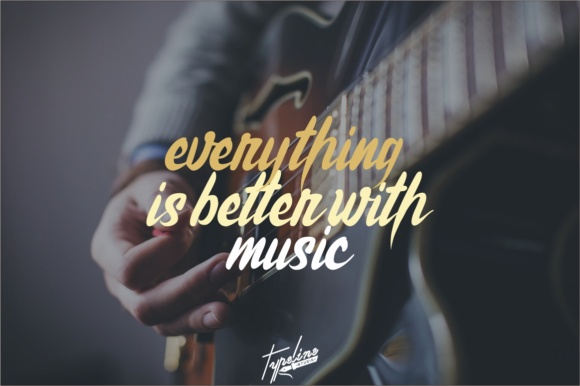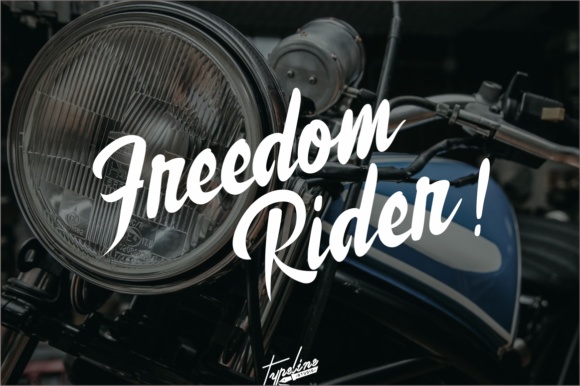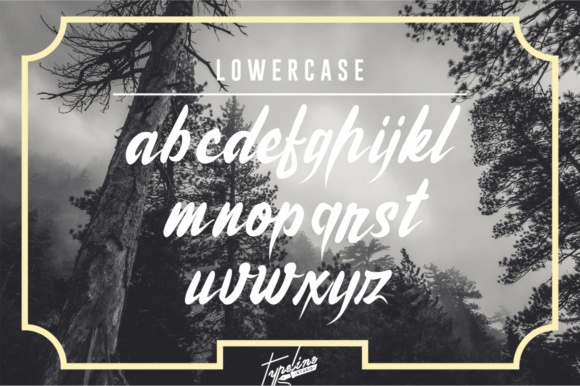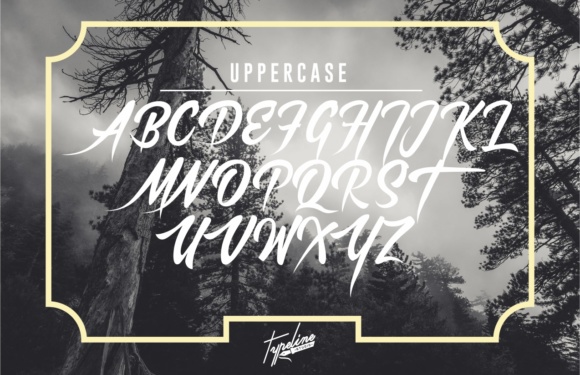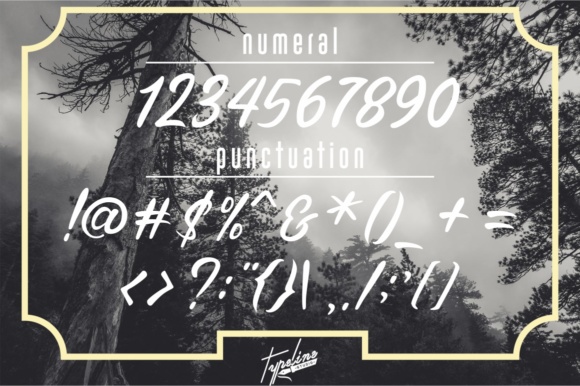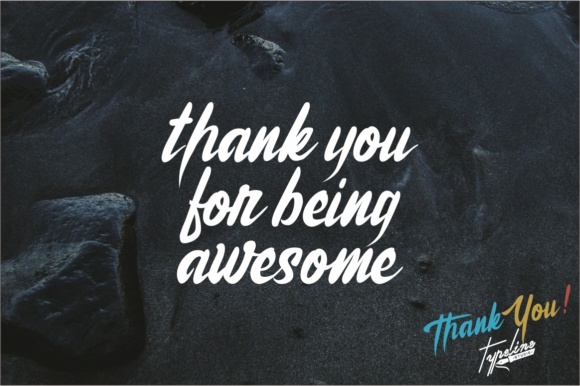
Brother Lands Font
About Brother Lands Font
Brothers Land is a new script font by Typelinestudio. Brother land has a personal charm. With it’s solid brush style, brother land is perfect for branding projects, quotes, T-shirts, communities, automotive clubs or anything else your creative brain can think of.